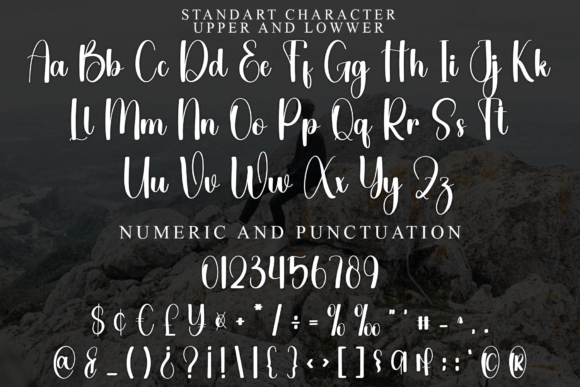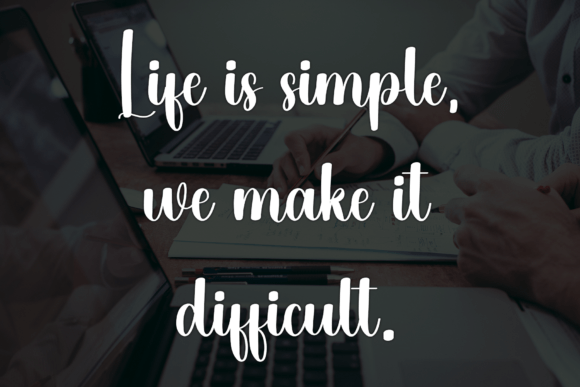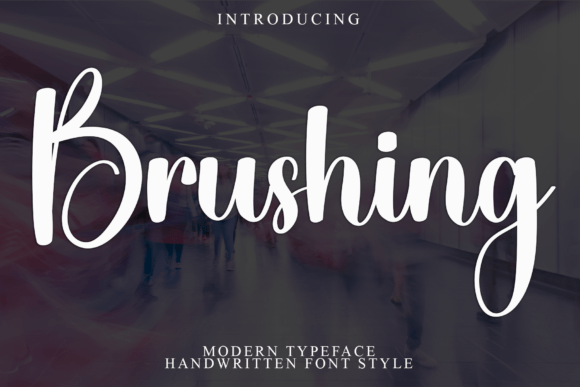
Introducing Brushing Font: Elevate Your Designs with Timeless Elegance
Are you on the hunt for a font that exudes sophistication, style, and a touch of classic charm? Look no further than Brushing Font, a stunning typeface that brings a contemporary twist to traditional calligraphy. Inspired by the beauty of timeless classic calligraphy, Brushing Font is the perfect addition to any design project, offering a unique blend of elegance, balance, and versatility.
The Inspiration Behind Brushing Font
Brushing Font draws its inspiration from the world of classic calligraphy, where the art of beautiful handwriting is revered. The font’s creator aimed to capture the essence of this timeless art form, infusing it with a modern atmosphere and impeccable form. The result is a font that feels both nostalgic and fresh, perfect for designers and crafters seeking to add a touch of sophistication to their work.
Key Features of Brushing Font
So, what makes Brushing Font so special? Here are just a few of its key features:
- PUA Encoded: Brushing Font is PUA (Private Use Area) encoded, which means you can easily access all the amazing glyphs and ligatures without any hassle. This feature makes it incredibly user-friendly, allowing you to focus on your design rather than getting bogged down in complicated font mechanics.
- Balanced and Varied: The font boasts a beautiful balance of thick and thin strokes, creating a sense of harmony and visual flow. With a range of glyphs and ligatures at your disposal, you can add depth and interest to your designs with ease.
- Contemporary Atmosphere: While Brushing Font is rooted in classic calligraphy, it has been carefully crafted to feel modern and relevant. This makes it perfect for designers looking to create work that feels fresh and current.
Brushing Font is a versatile typeface that can be used in a wide range of design projects, from:
- Logos and Branding: Add a touch of elegance to your logo or brand identity with Brushing Font’s sophisticated lettering.
- Wedding Invitations and Stationery: Create beautiful, bespoke wedding invitations, stationery, and other paper goods with this stunning font.
- Packaging and Product Design: Elevate your packaging and product design with Brushing Font’s unique blend of classic and contemporary style.
- Digital Design: Use Brushing Font to add a touch of sophistication to your digital designs, from social media graphics to website headers.
Why Choose Brushing Font?
With so many fonts on the market, why choose Brushing Font? Here are just a few reasons why this typeface stands out from the crowd:
- Unique and Exclusive: Brushing Font offers a distinctive look that will set your designs apart from the competition.
- High-Quality Design: The font has been carefully crafted to ensure that it looks beautiful and elegant in any context.
- Easy to Use: With its PUA encoding and user-friendly design, Brushing Font is easy to use, even for designers who are new to working with fonts.
Brushing Font is a stunning typeface that brings a touch of timeless elegance to any design project. With its beautiful balance of classic and contemporary style, this font is perfect for designers and crafters seeking to add a touch of sophistication to their work. Whether you’re creating logos, wedding invitations, packaging, or digital designs, Brushing Font is the perfect choice. So why wait? Download Brushing Font today and discover the power of beautiful, elegant typography.